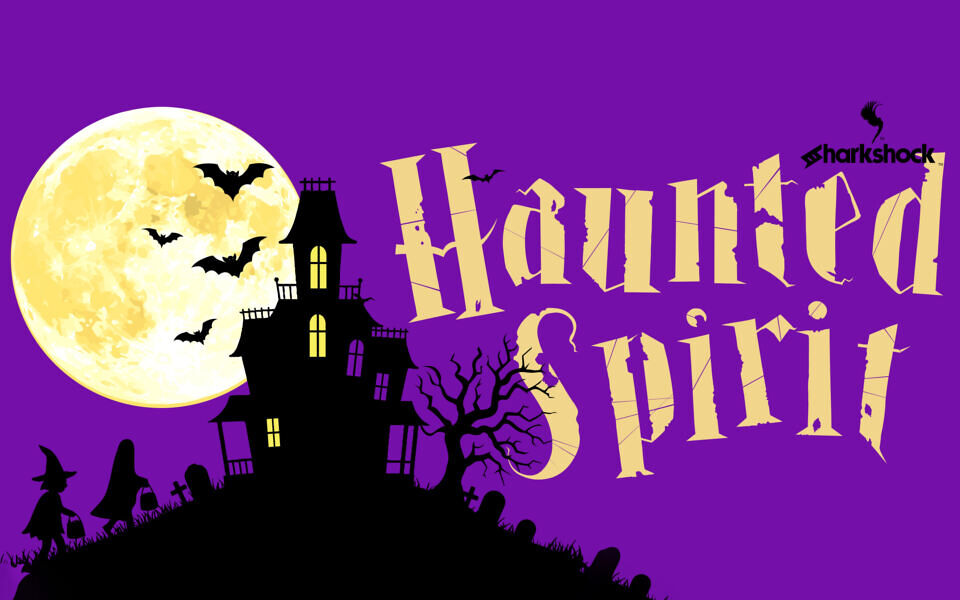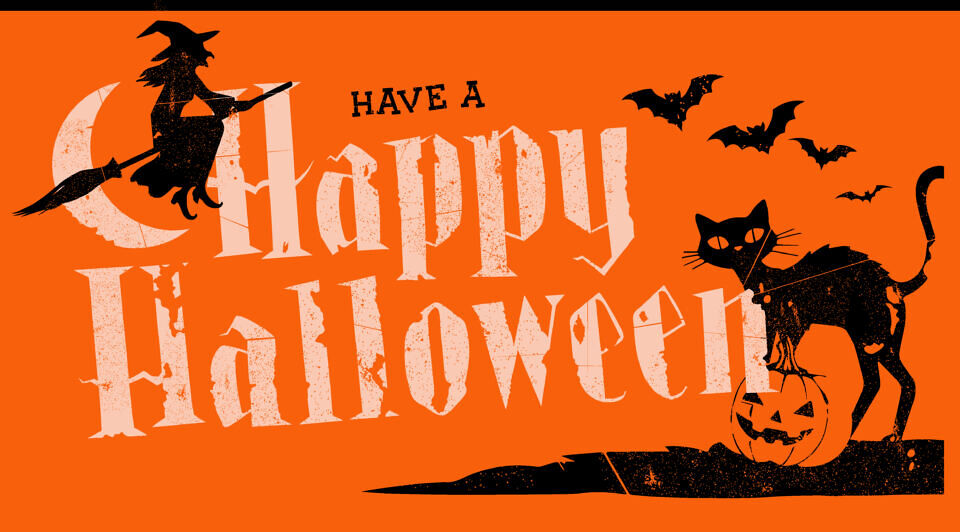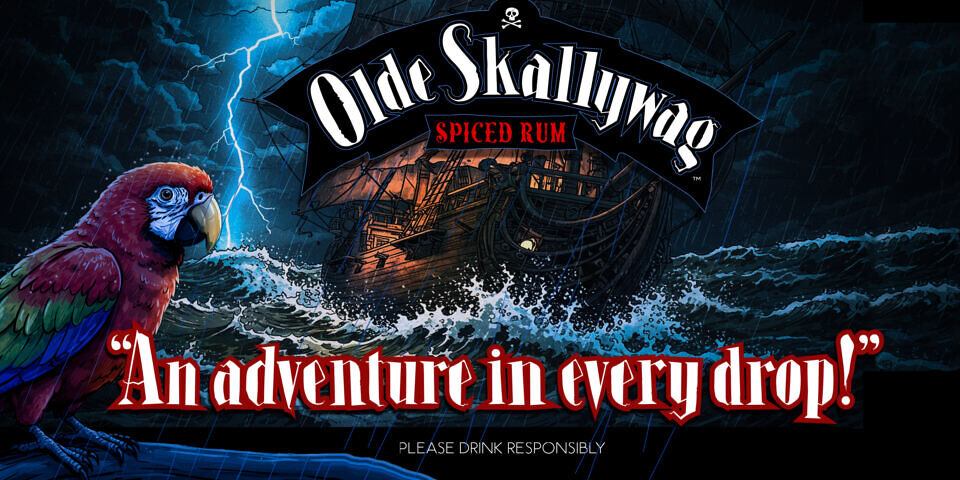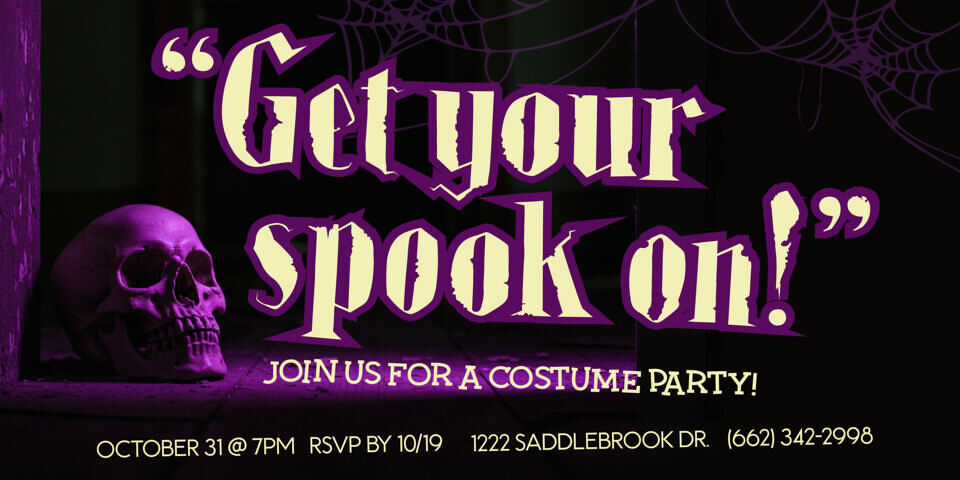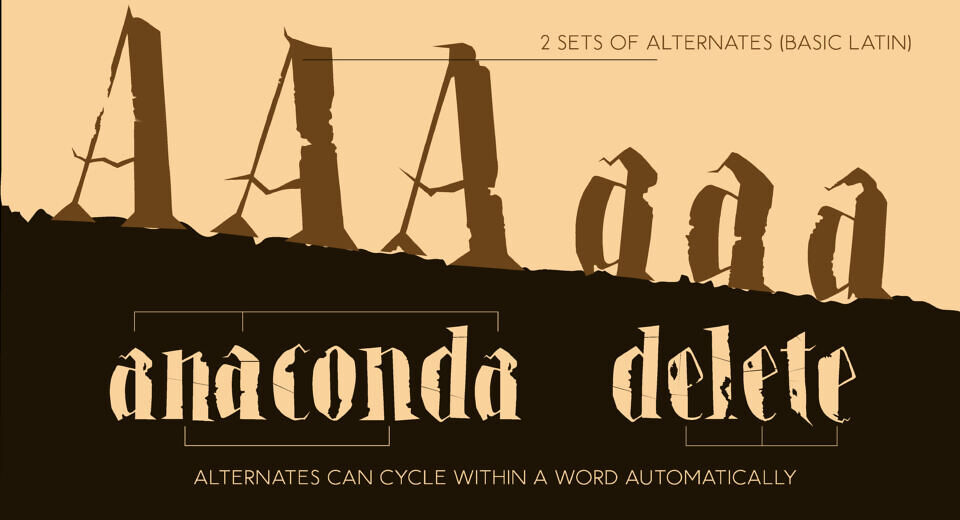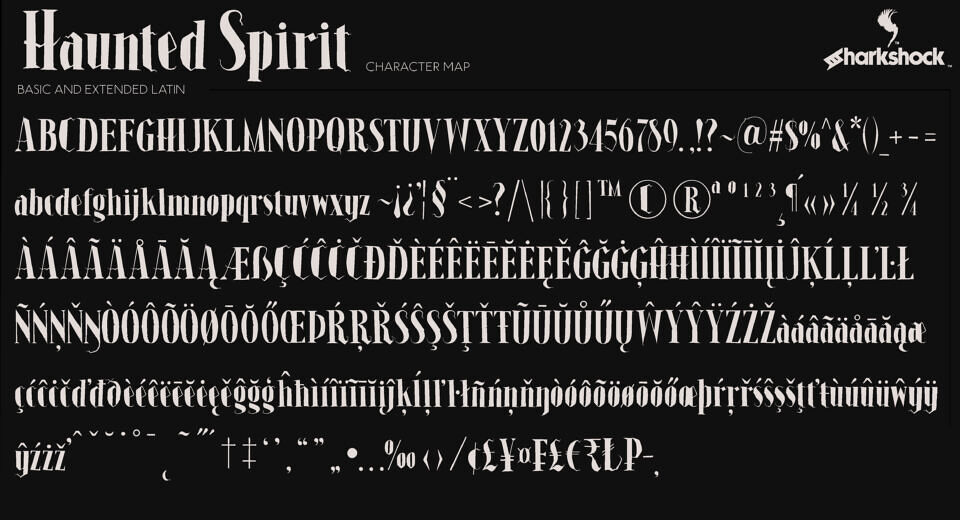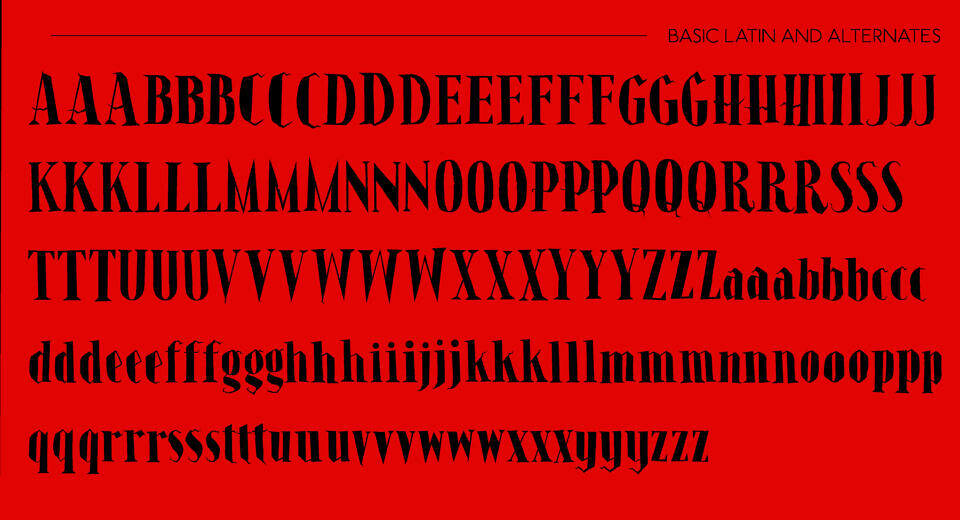
Haunted Spirit is a Halloween themed display font that will add some spookiness to your project. Asymmetrical strokes and jagged lines give this family a whimsical character. Several of the serifs, cross bars, ascenders, and others terminate in a root-like manner.
Included are 3 different versions which allow you to control the level of distress along with 2 sets of alternates for Basic Latin. OTF programming allows you to cycle through multiple instances of a letter within a single word if your application supports it. Use Haunted Spirit for a party invite, movie poster, or a witch themed book.